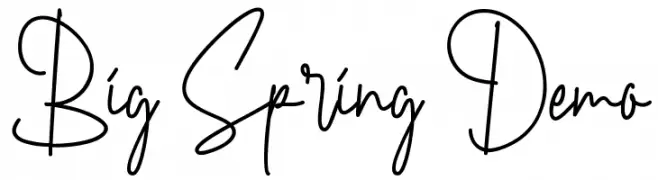
A dynamic and flowing script font with elegant curves and smooth connections.
A modern, geometric font with clean lines and rounded edges.
A bold, angular typeface with a futuristic and dynamic style.
( Fonts by twinletter )
A bold, decorative font with unique embellishments and a playful edge.
( Fonts by Khurasan )
A bold, playful font with rounded edges and a chunky, whimsical style.
A playful, bold script font with a handwritten style.
( Fonts by Nabila )
An elegant, cursive font with a sophisticated, handwritten style.
A playful, handwritten font with smooth curves and a casual style.
A bold, decorative slab serif font with playful curls and a vintage-modern appeal.
( Fonts by twinletter )
A bold, geometric font with a modern and edgy style.
A bold, angular font with a geometric and modern style.
Bold geometric sans-serif with rounded forms and modern style.
A modern, geometric font with a futuristic and structured design.
A modern, geometric font with rounded and angular elements, perfect for contemporary designs.
( Fonts by Typefar )
A bold, rounded font with a playful and energetic style.
( Fonts by Typefar )
A bold, playful font with rounded edges and a smooth, flowing style.
A bold, handwritten font with a playful and energetic style.
A bold, dripping font perfect for horror-themed designs.
( Fonts by Klakon Studio )
Elegant script font with a calligraphic touch.
( Fonts by Maulana Creative )
Elegant handwritten script with connected, flowing strokes.
( Fonts by Alexandra Cardenas )
A playful and flowing script font with a handwritten style.
A bold, rounded font with smooth curves and a friendly appearance.
A playful, handwritten-style font with bold, rounded strokes.
An elegant, flowing script font with interconnected cursive letters.
( Fonts by wepfont - Wahyu Eka Prasetya - Personal-use only. For commercial use please contact owner. )
A playful, bold handwritten font with a casual and dynamic style.
A playful, hand-drawn font with bold, irregular strokes.
A bold, geometric font with a modern, futuristic style.
( Fonts by Beatriz Loducca )
A playful, hand-drawn font with tall, narrow characters and a whimsical style.